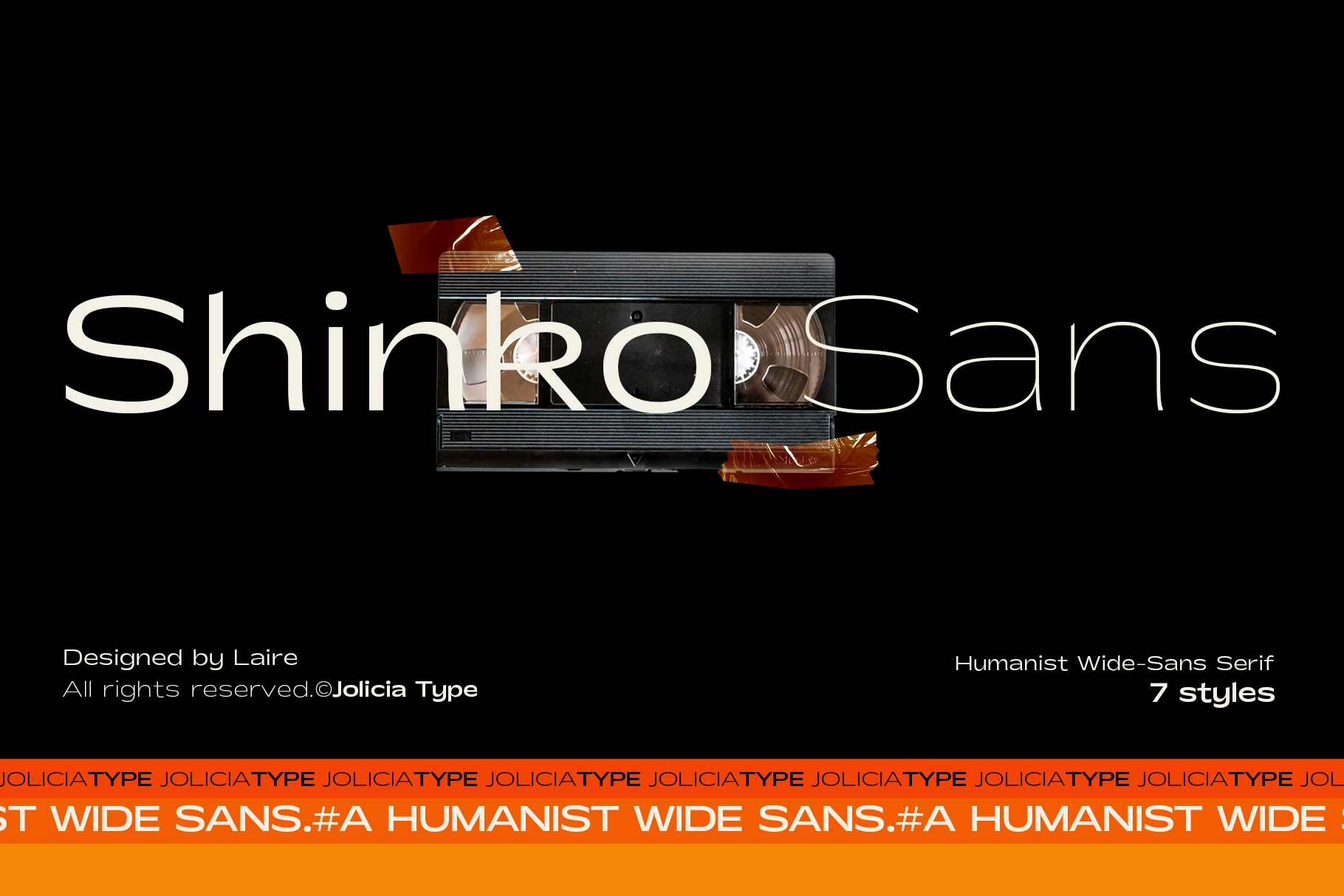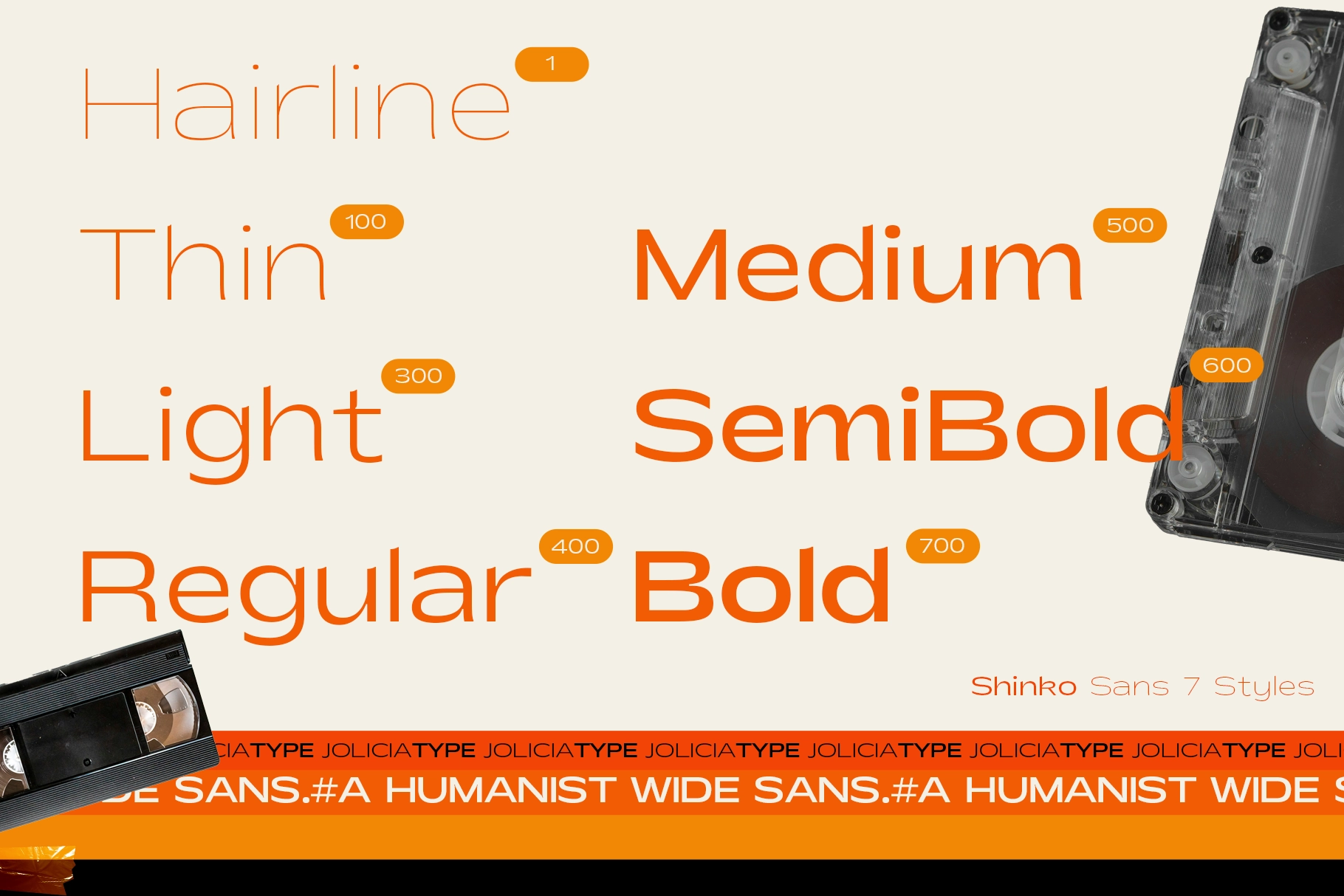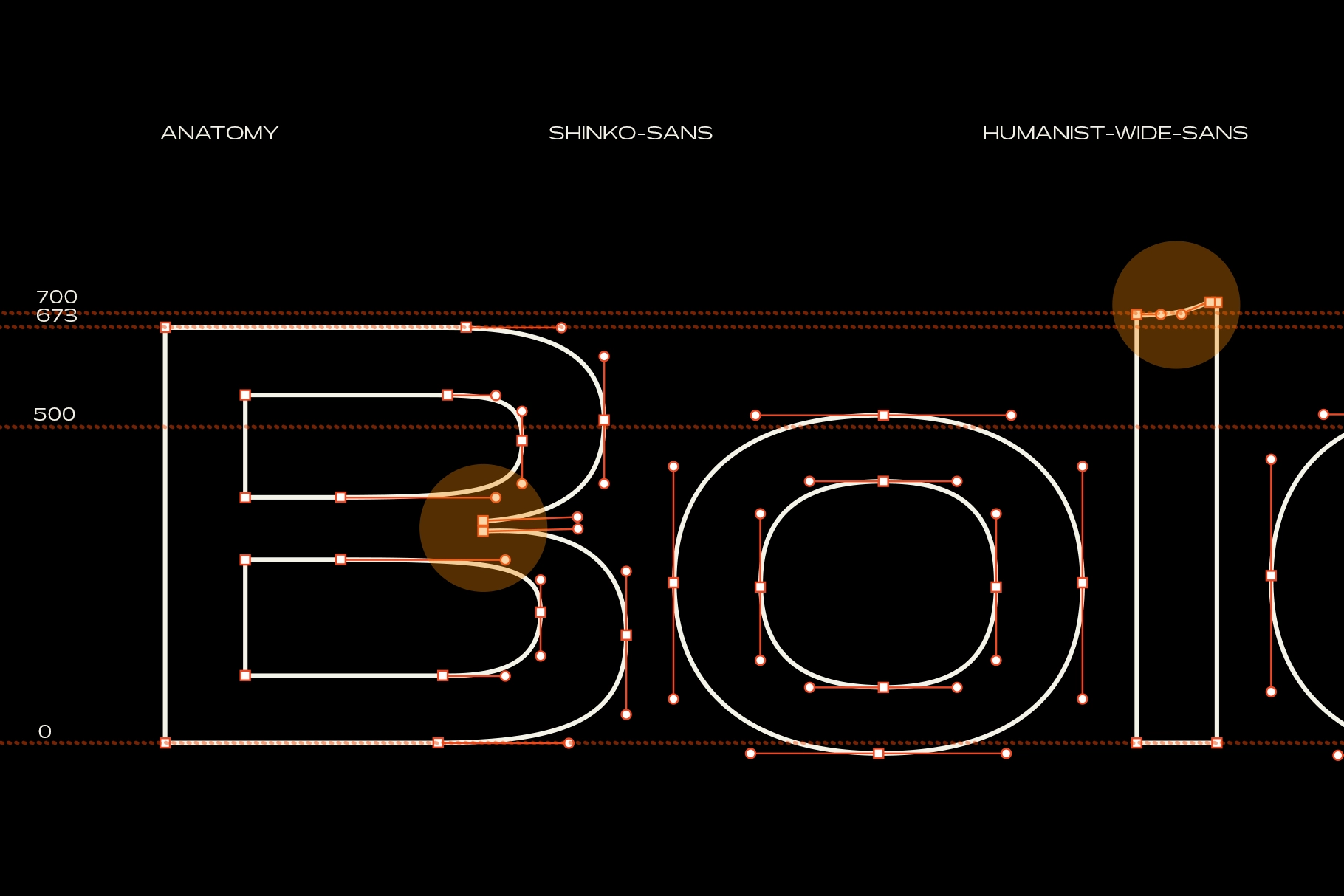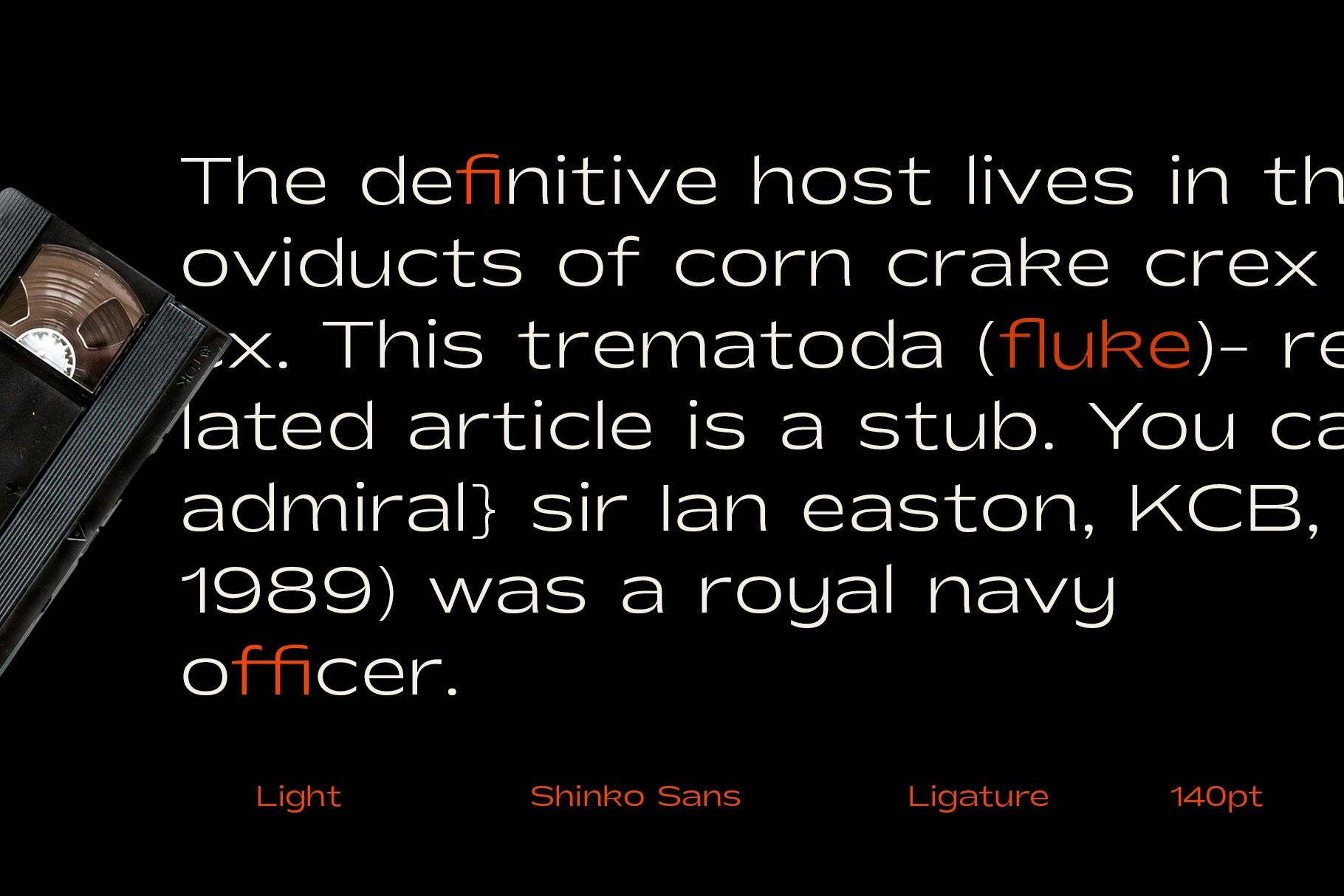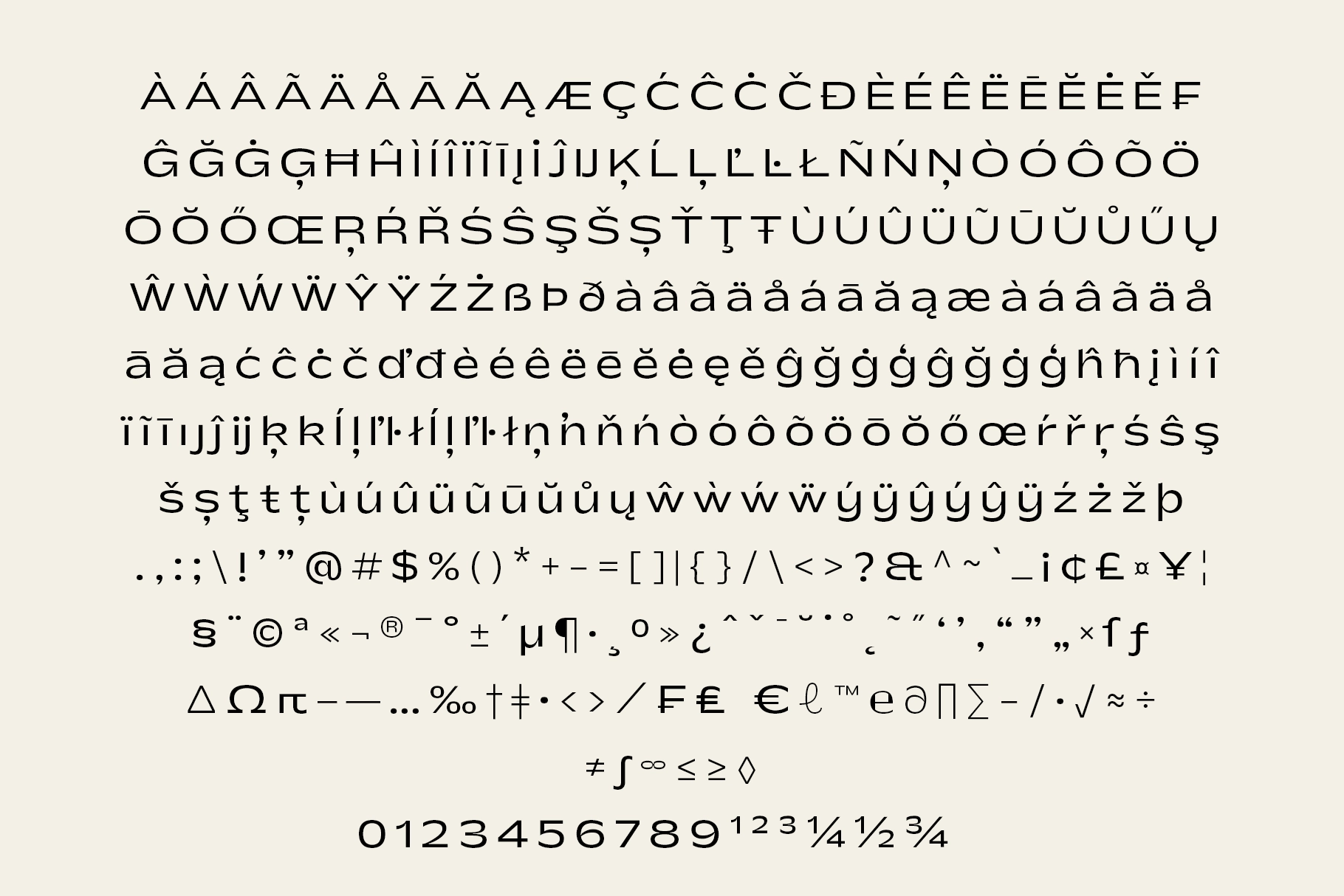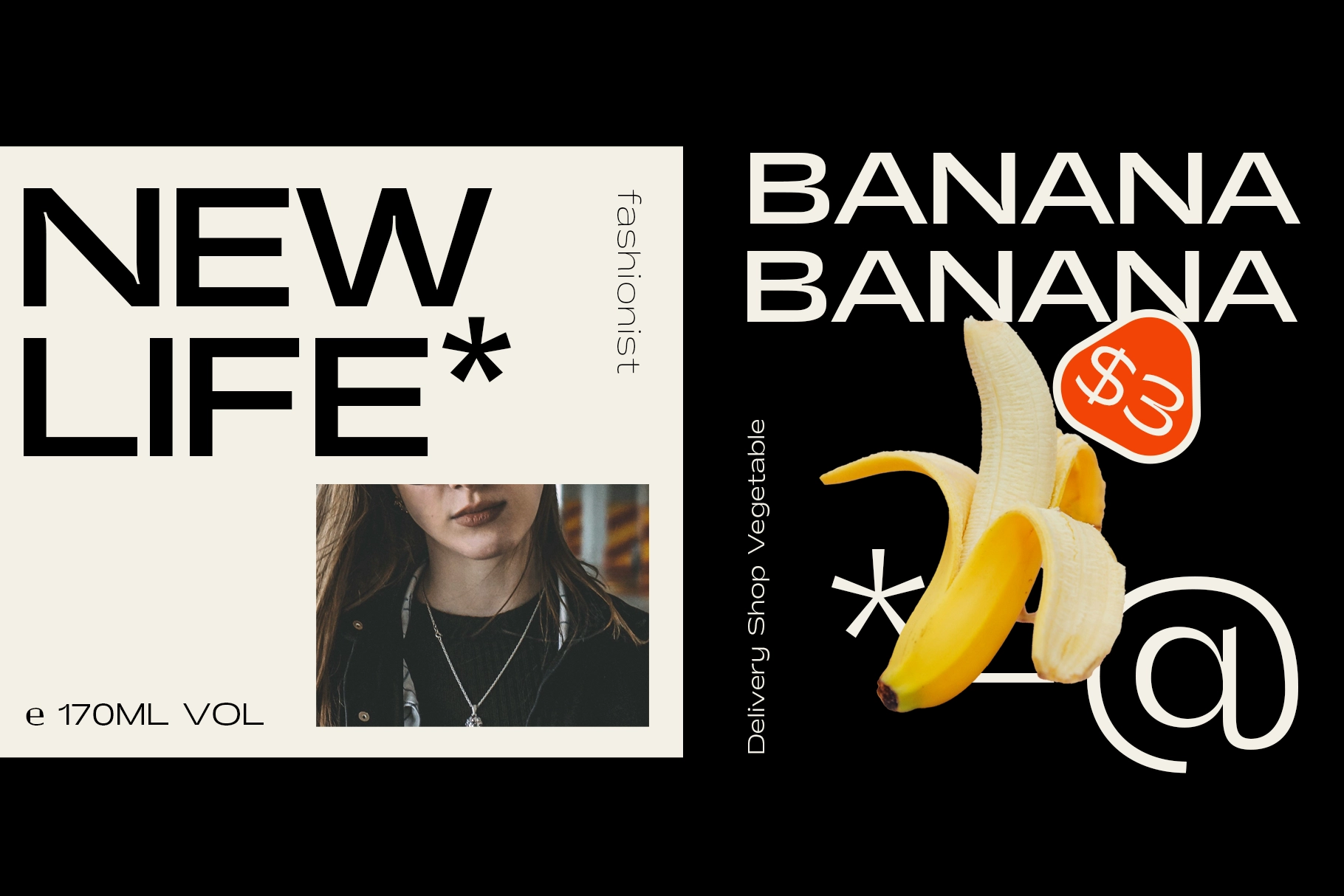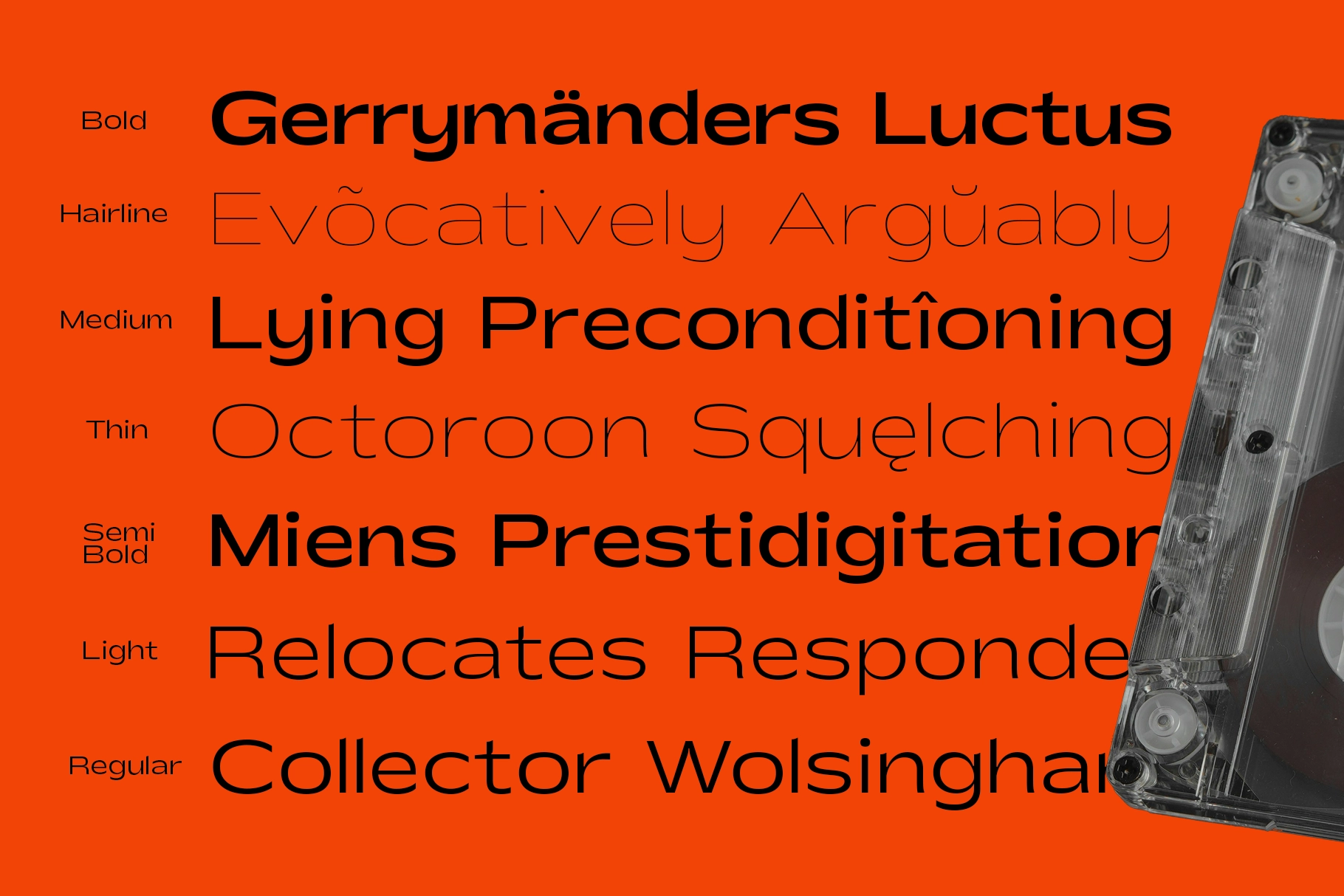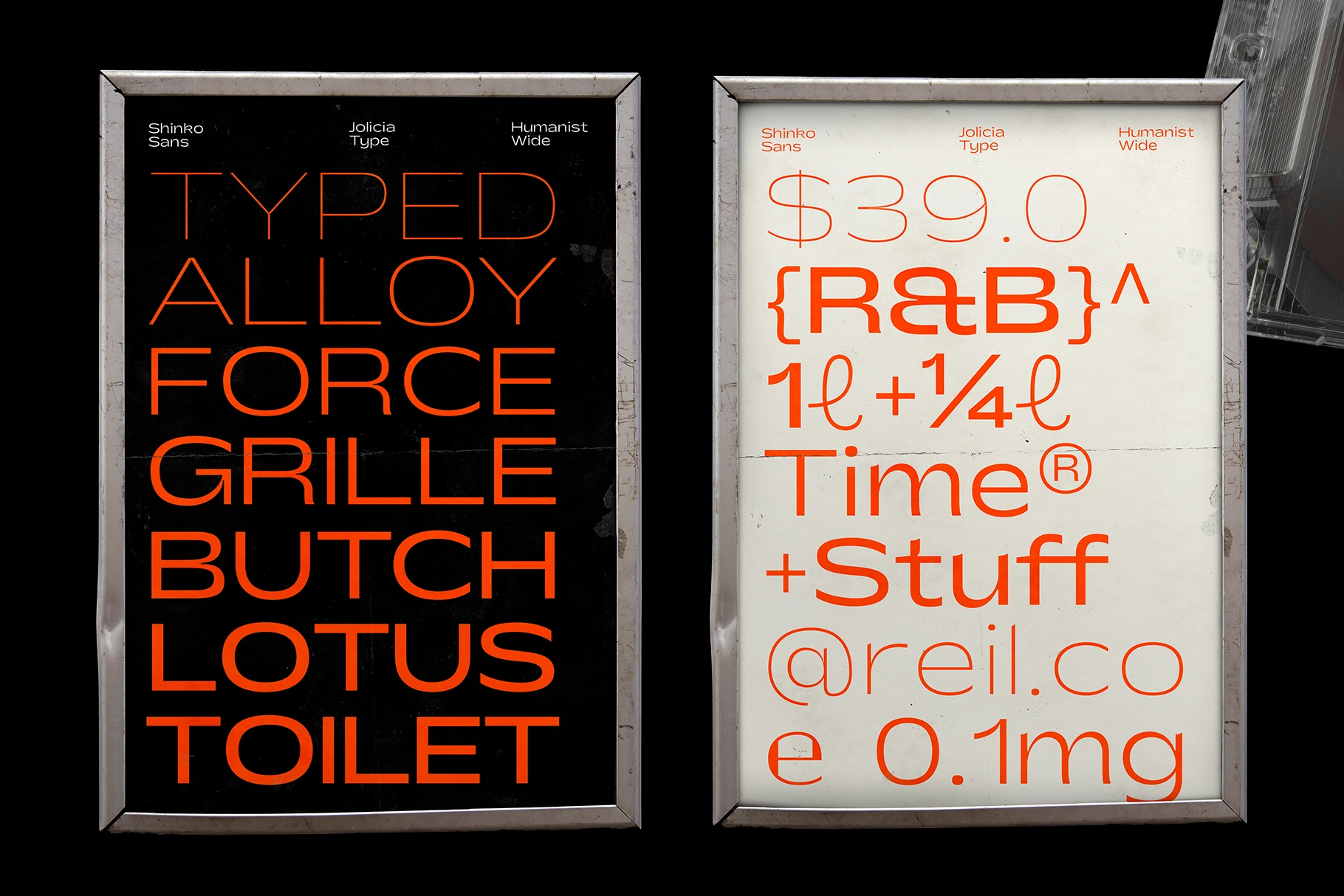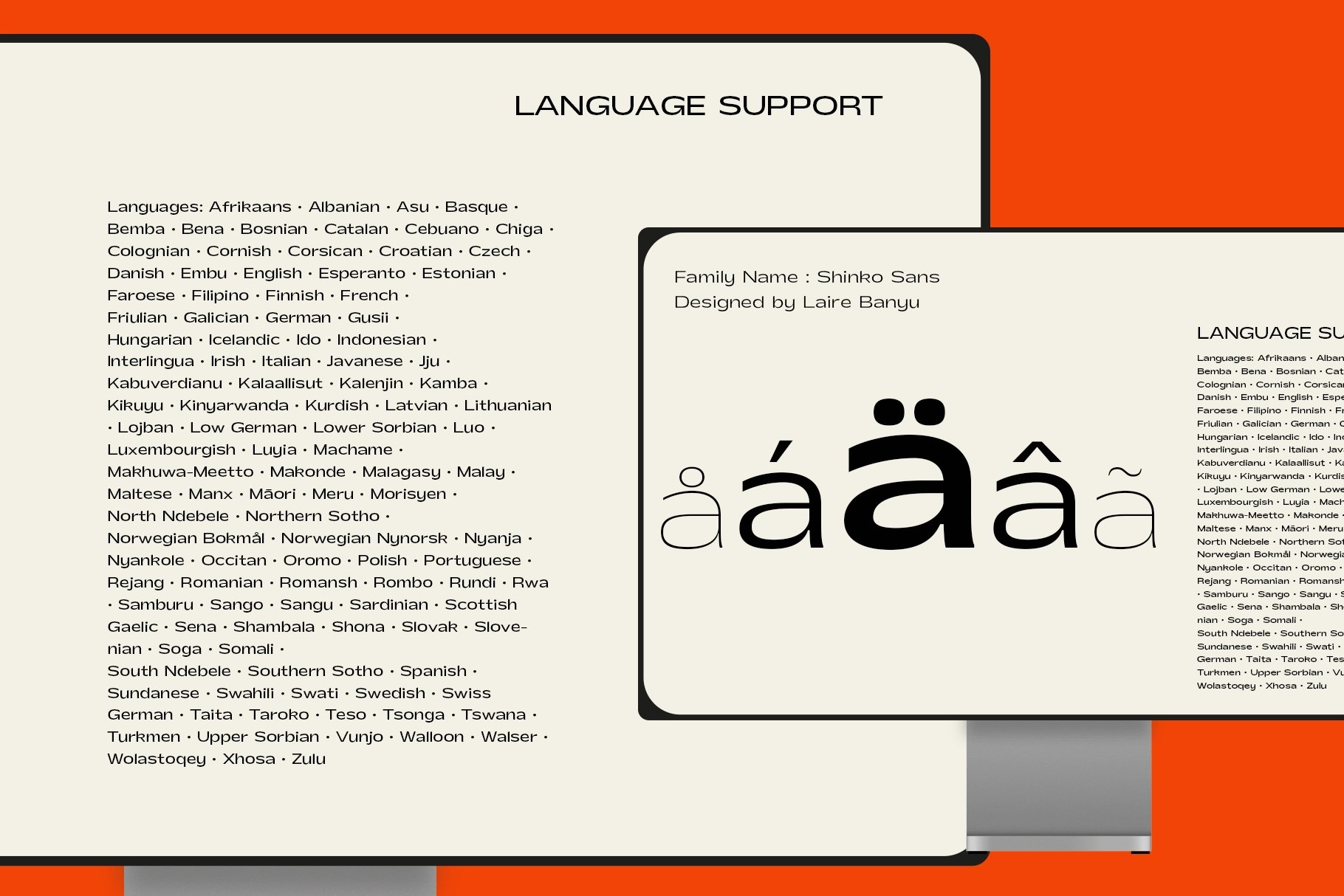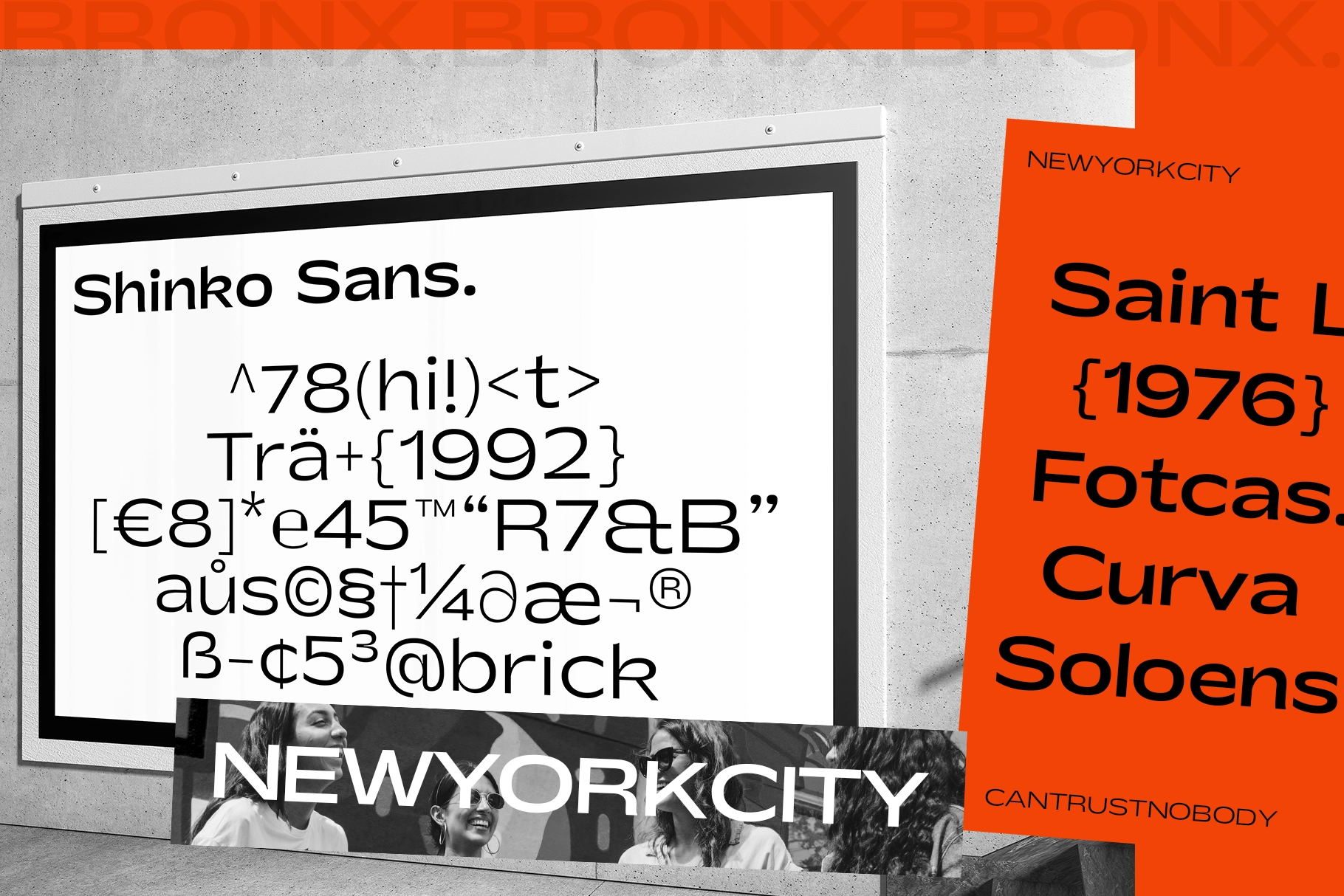
Shinko Sans - Humanist Wide Sans Serif Font
Shinko translates as new old in Japanese, and this humanist wide sans serif font holds that duality — stems taper slightly to the right, shoulders curve softly into the lower stroke, and the whole letterset lands somewhere between a worn cassette label and a clean editorial grotesk. Ink traps sit at the thick-stem junctions, so the shapes hold up even set small.
Seven weights run from a barely-there Hairline to a solid Bold, so the same wide, rounded structure carries from body copy up to headline weight without losing its character. Use it for branding and logos, editorial headlines, poster and flyer titles, web and UI headlines, and social content.
- 7 styles: Hairline to Bold;
- Uppercase & lowercase;
- Numerals, punctuation & symbols;
- Ligatures;